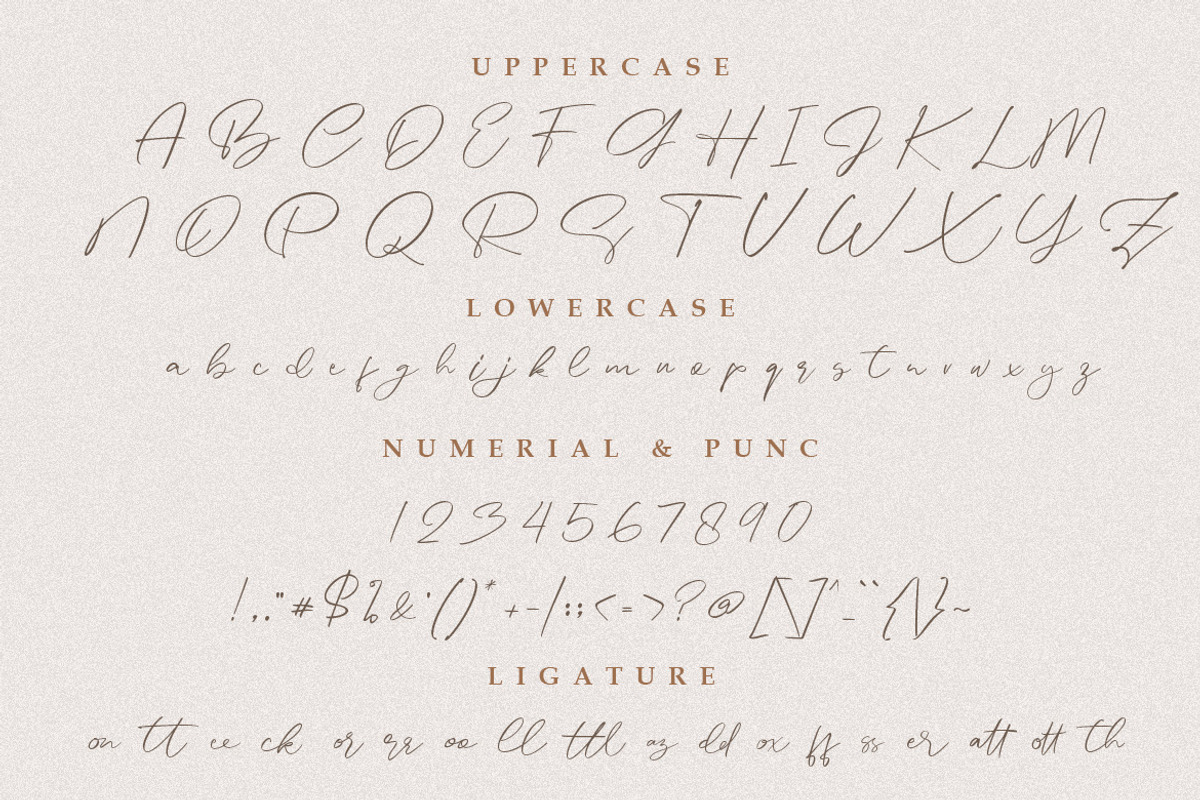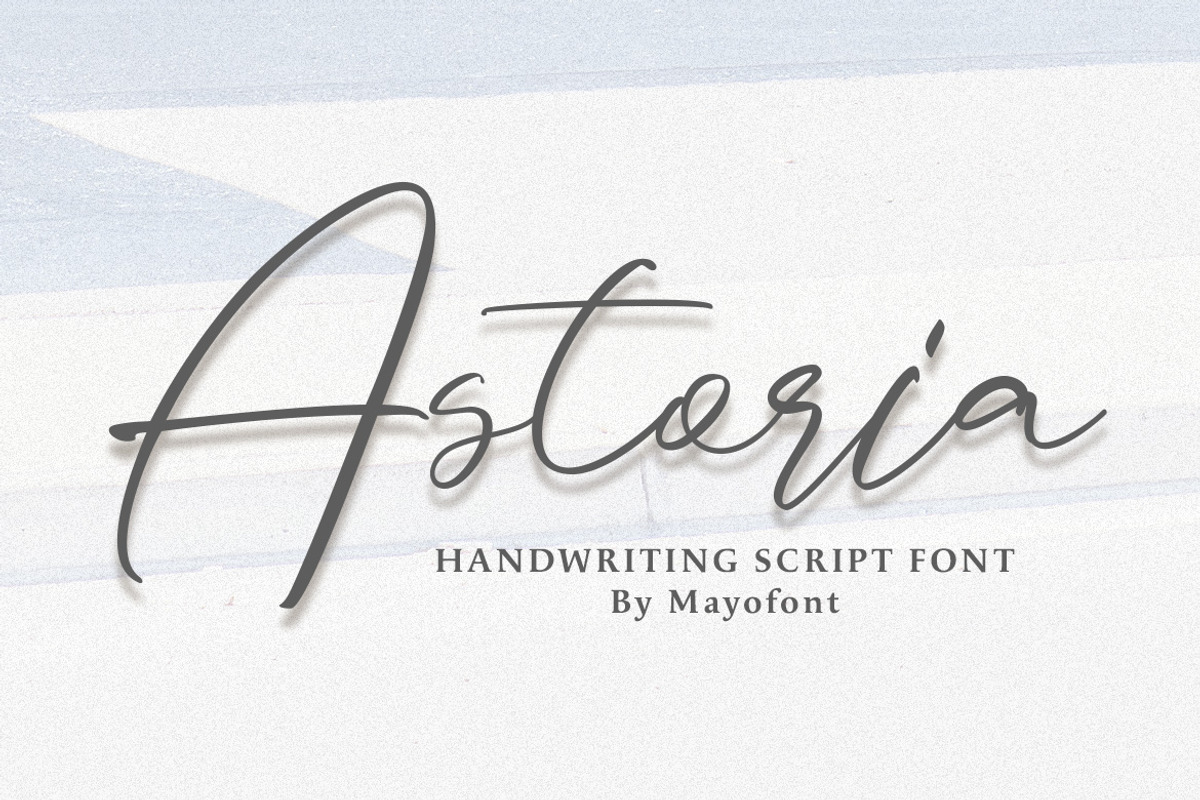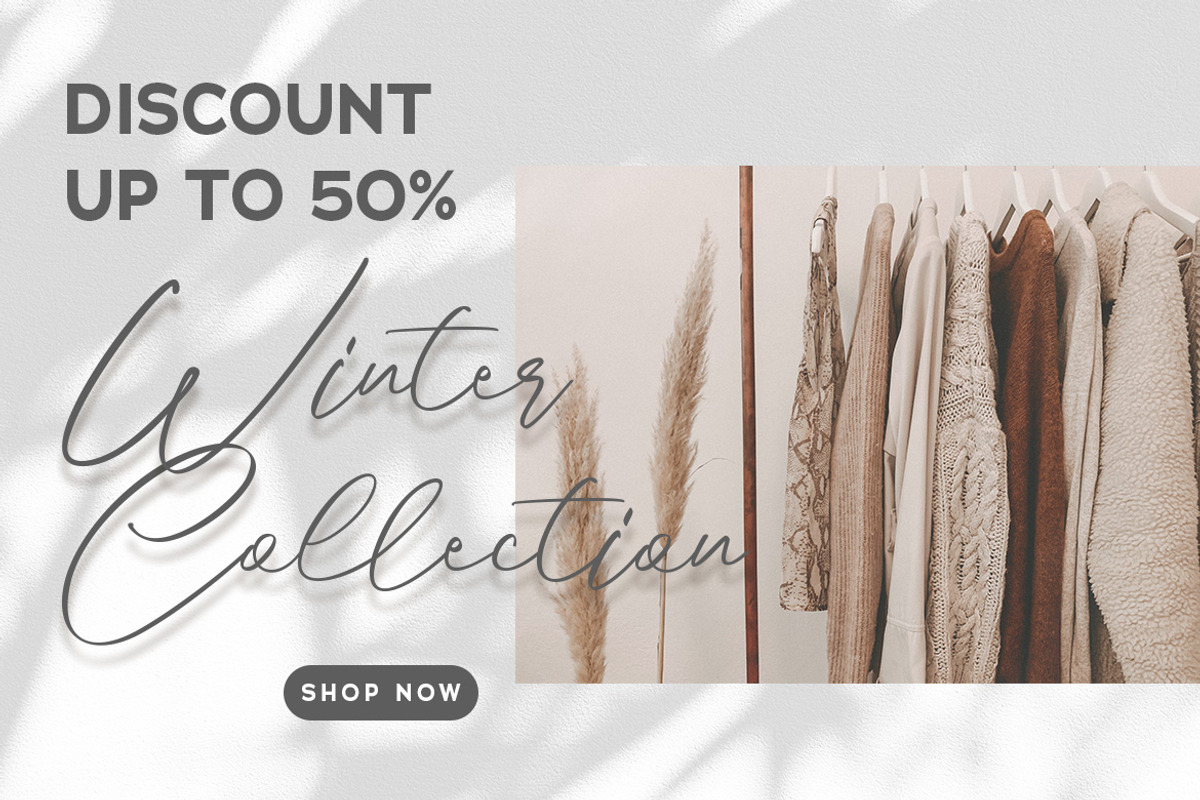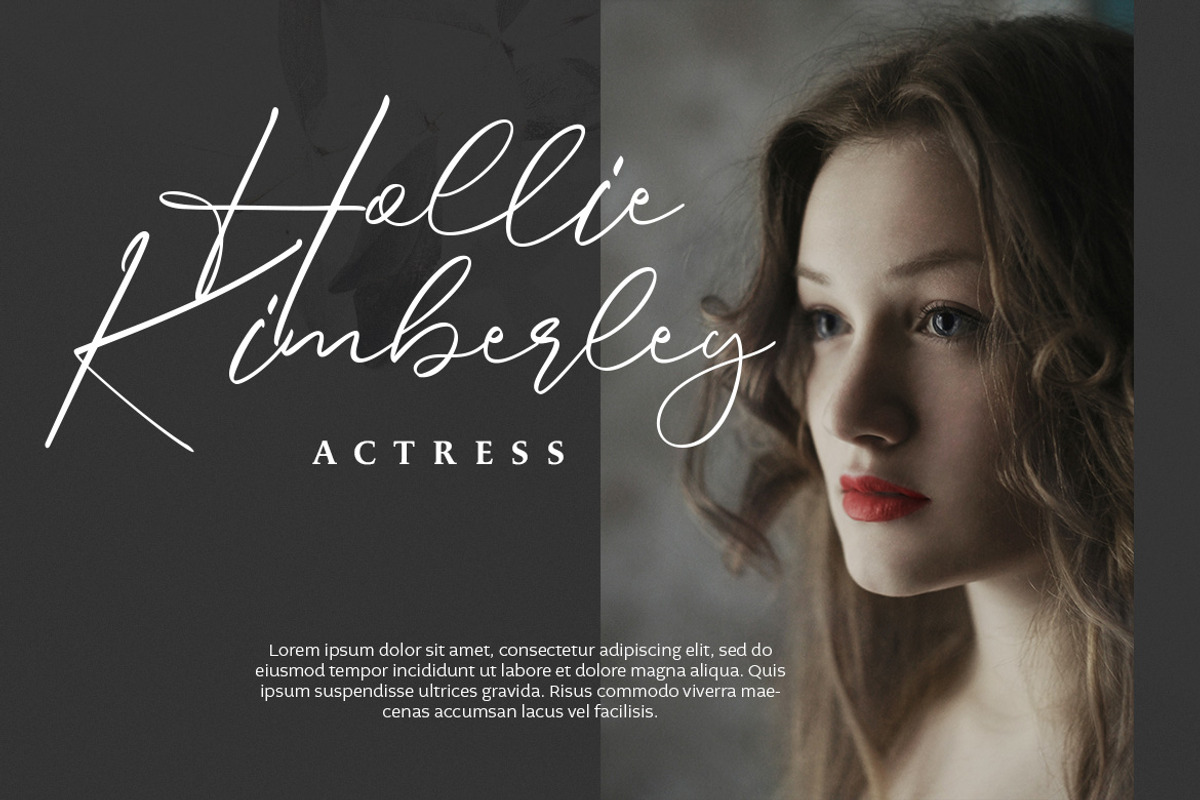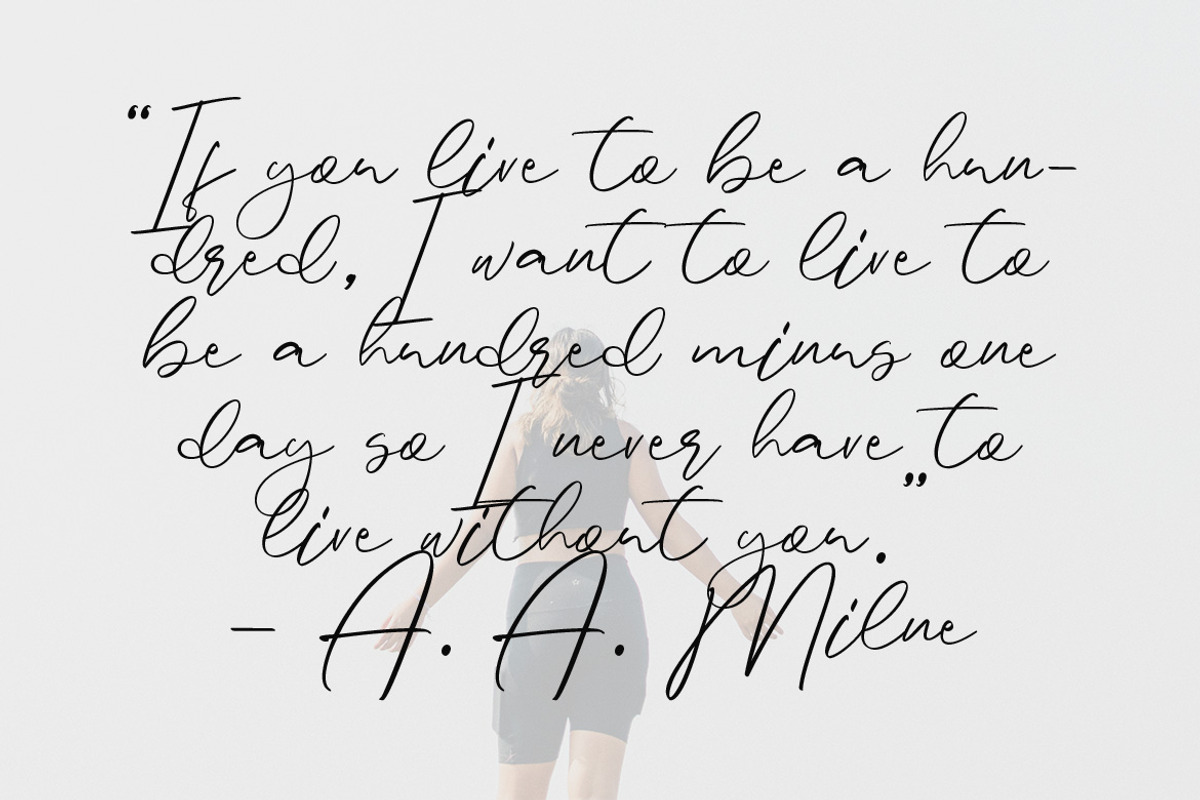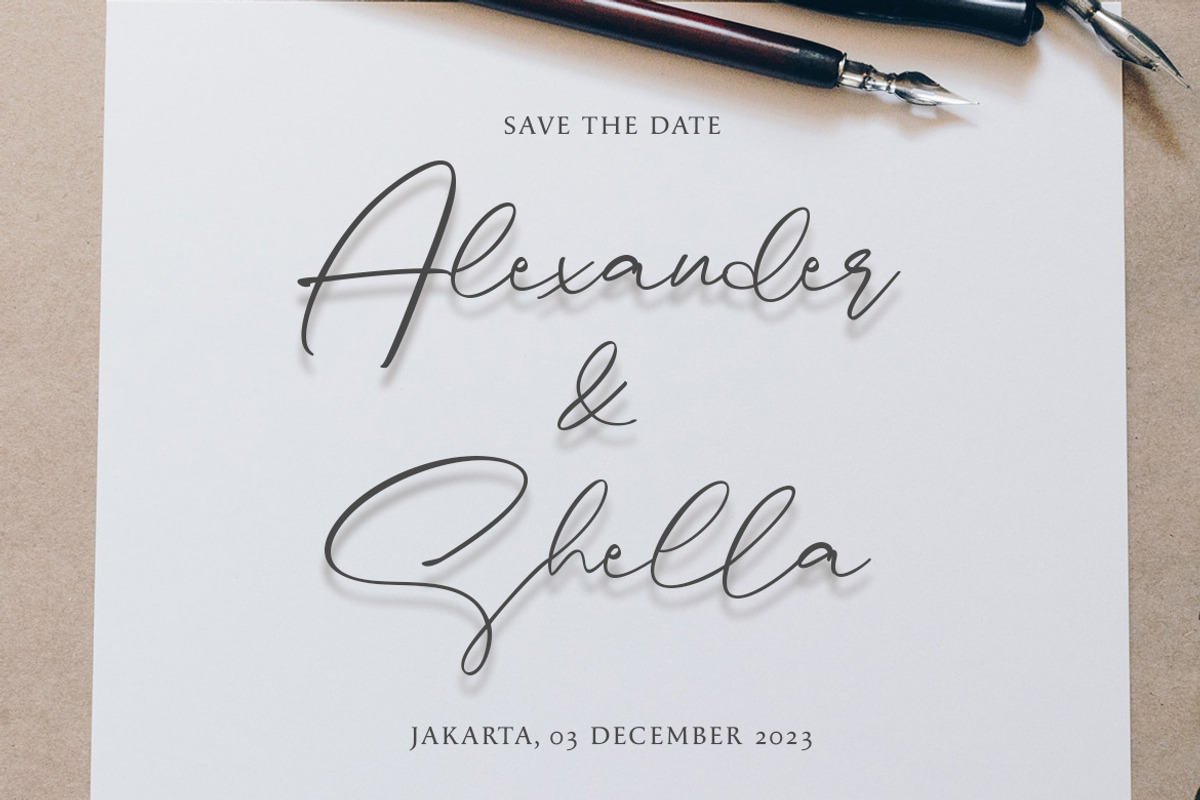
Astoria - Handwriting Font
Each stroke carries the essence of handwritten artistry, adding a sense of warmth and authenticity to your designs. Whether it’s a romantic wedding invitation or a whimsical greeting card, this font effortlessly transforms ordinary words into captivating works of visual poetry.
- multilingual support & ligature